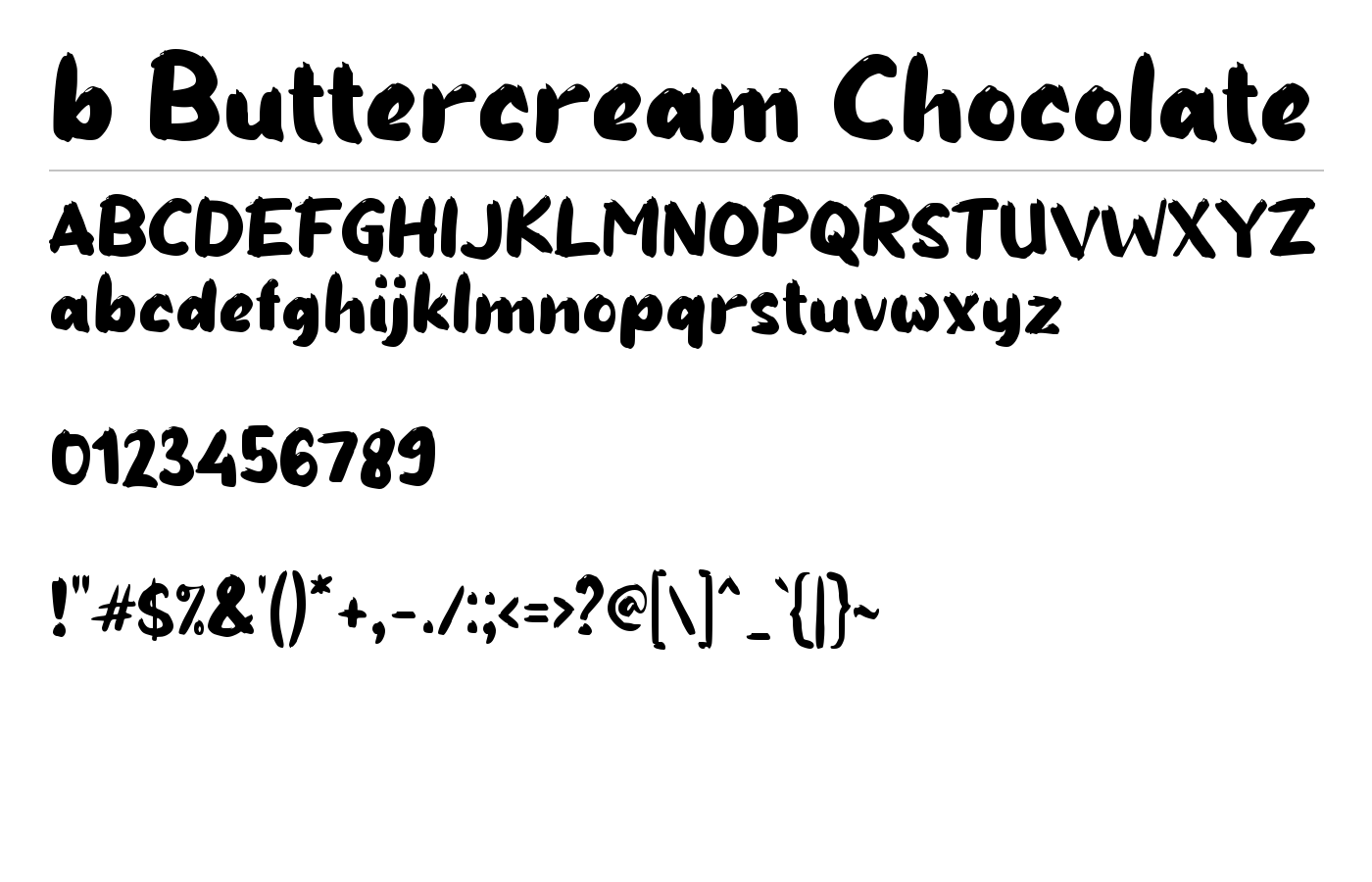
b Buttercream Chocolate is a bold, playful handwritten sans serif font with a casual, hand-painted feel. Its thick, rounded strokes and slightly irregular letter shapes convey warmth and friendliness, making it perfect for fun, creative branding, packaging, and informal headlines. This font works well where a relaxed, approachable personality is desired, adding a charming and lively touch to any design.
b Buttercream Chocolate Font